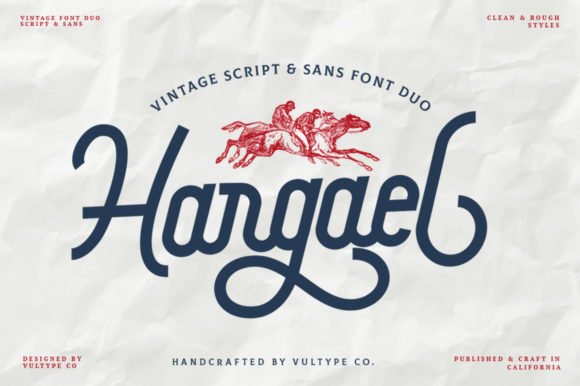
The Art of Timeless Typography
Have you ever stumbled upon a vintage photograph and been captivated by the intricate details and textures that bring it to life? I know I have. There’s something about the way the past comes alive through typography that sparks our imagination and creativity. For designers, this sense of nostalgia is especially alluring, as it allows us to tap into a rich heritage of design and create something truly unique.
That’s where the Hargael Duo Font comes in – a stunning pair of Script and Sans fonts that perfectly capture the essence of vintage charm. With its beautiful swashes and elegant lines, this font duo is the perfect tool for designers looking to add a touch of nostalgia to their projects.
Whether you’re working on a branding project, a book cover, or a website, the Hargael Duo Font is an invaluable asset that will elevate your designs and transport your audience to a bygone era.
Hargael Duo Font Key Features
- Unique Characteristics: Hargael Duo Font features a unique blend of modern and classic design elements, making it perfect for both contemporary and traditional designs.
Hargael Duo Font Review
As a designer, I’ve had the chance to play around with Hargael Duo Font, and here’s my honest take on it.
Unique aesthetic: Hargael Duo Font has a distinct, modern feel that’s perfect for creative projects.
Good legibility: The font is easy to read, even at smaller sizes, making it suitable for body text.
Customization options: The font includes a range of weights, from light to bold, giving you flexibility in your designs.
Limited language support: Hargael Duo Font may not support all languages, which could be a problem for multilingual projects.
No italic or oblique styles: If you need italic or oblique text, you may need to look elsewhere.
Not suitable for formal or traditional designs: Hargael Duo Font’s modern look may not be the best fit for formal or traditional projects.
Hargael Duo Font is a solid choice for designers looking for a unique, modern font. While it may have some limitations, its customization options and good legibility make it a great option for creative projects. However, it may not be the best fit for formal or traditional designs, or for projects that require extensive language support.
Getting the Most Out of Hargael Duo Font
Hargael Duo Font is suitable for a variety of design projects